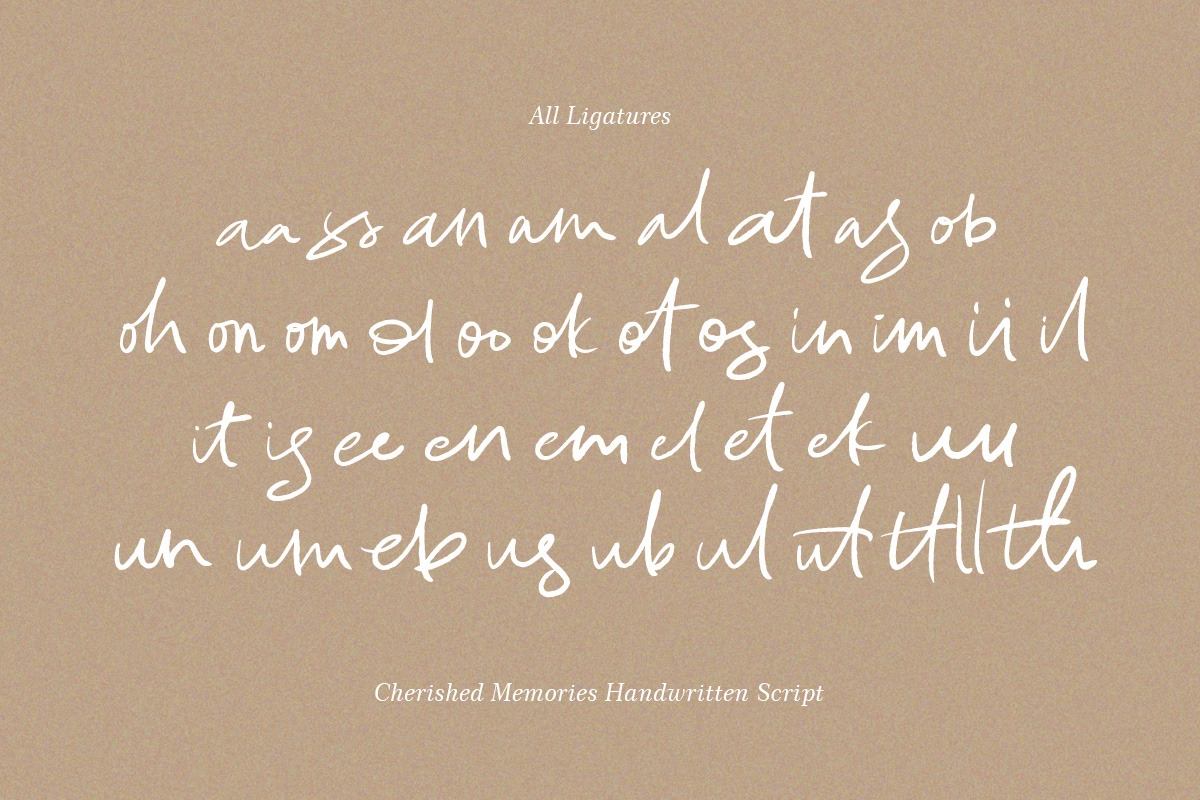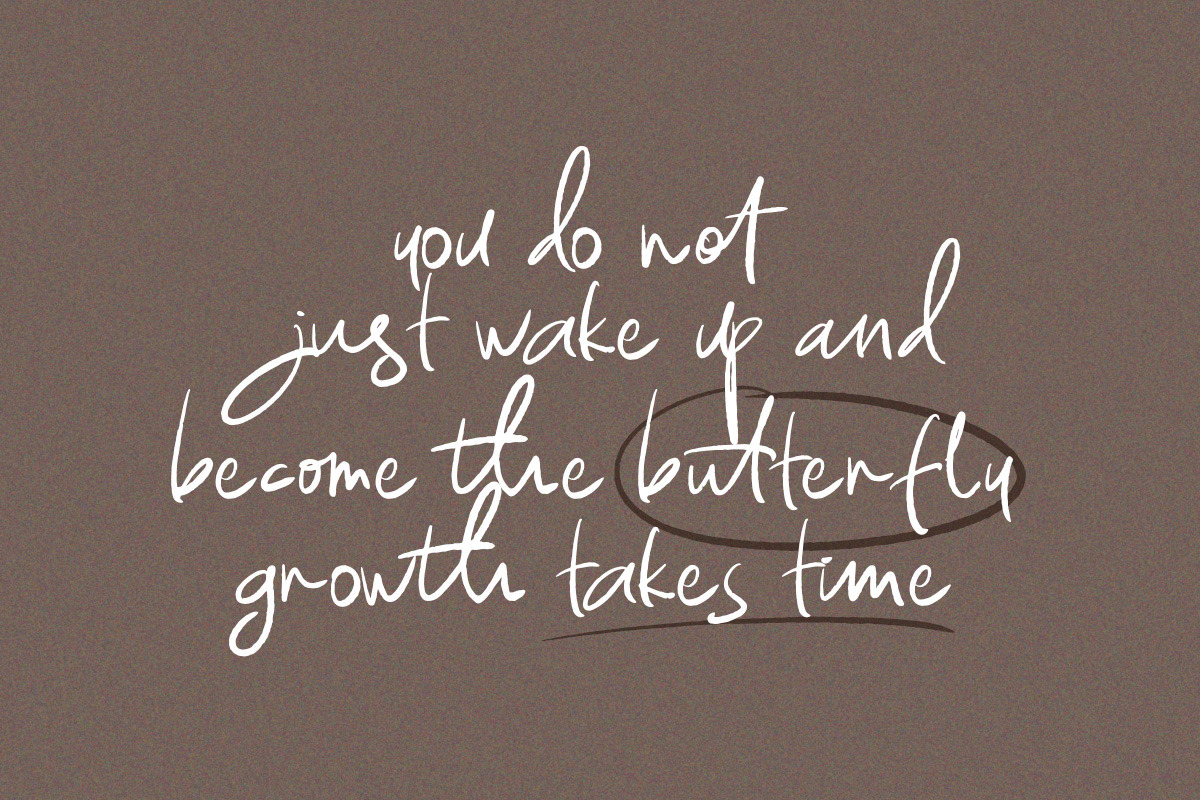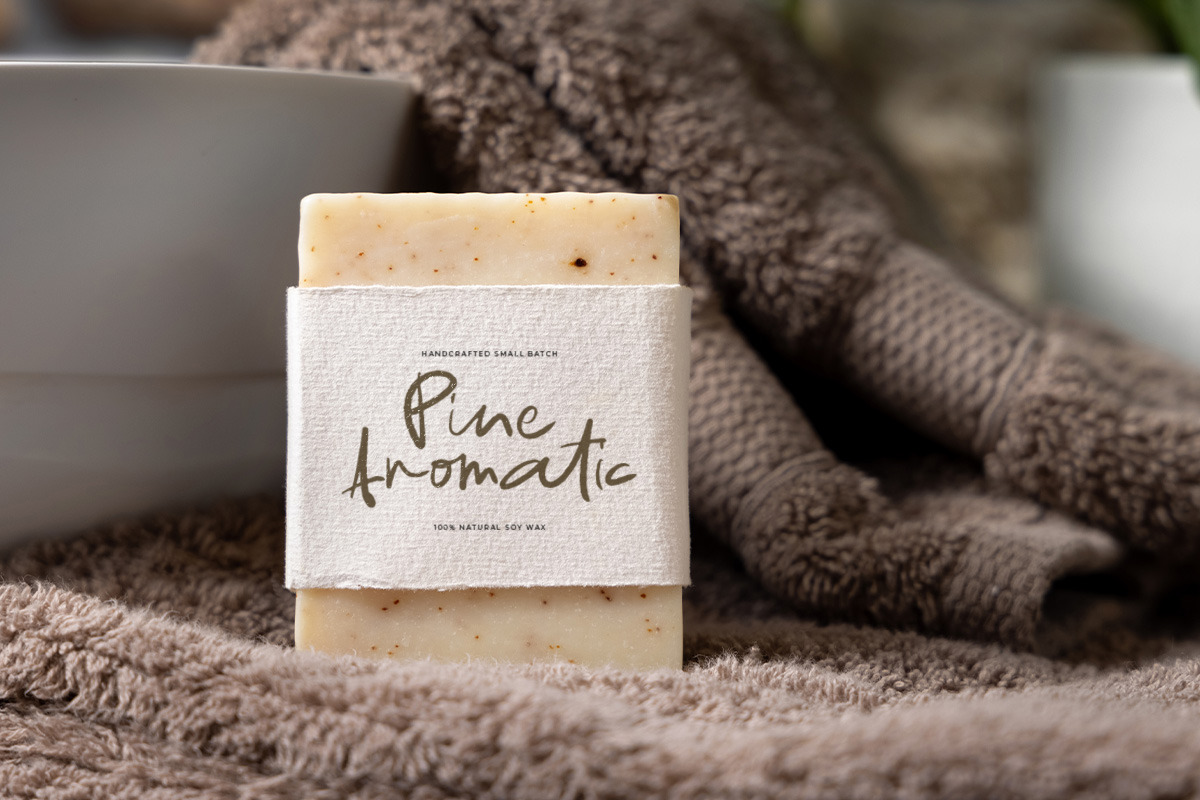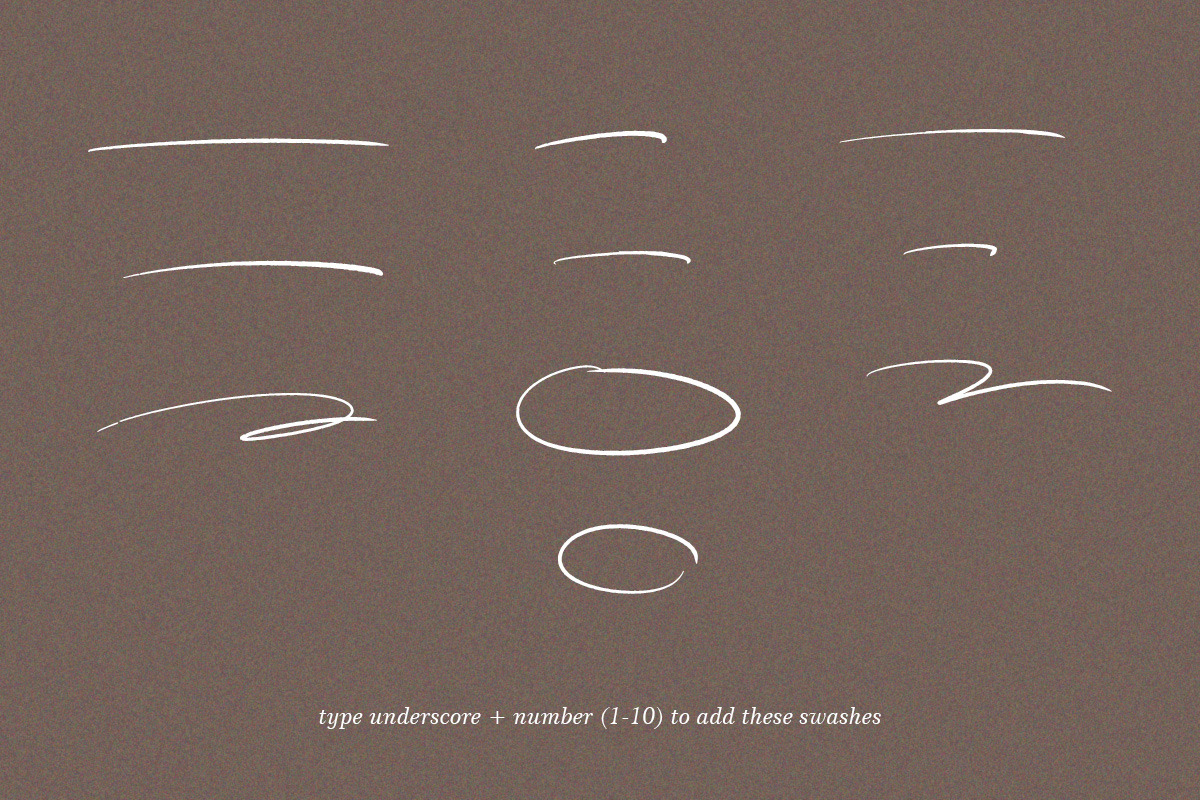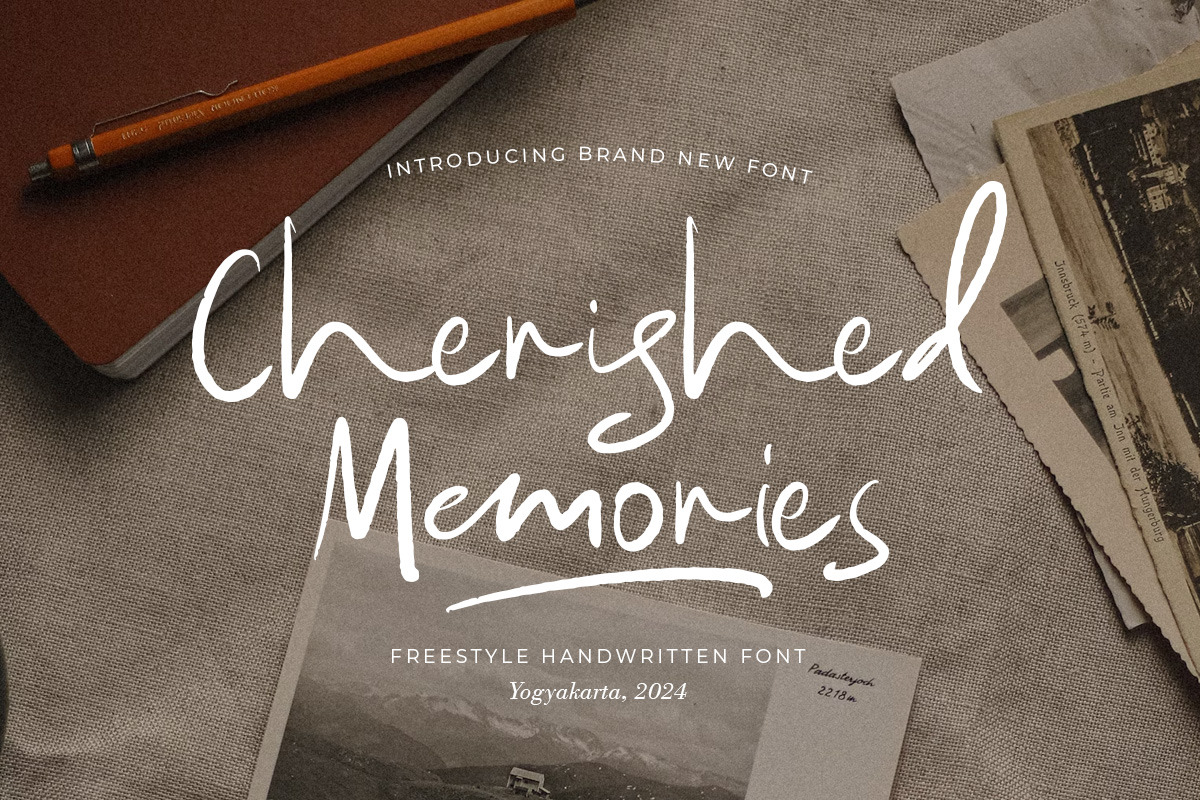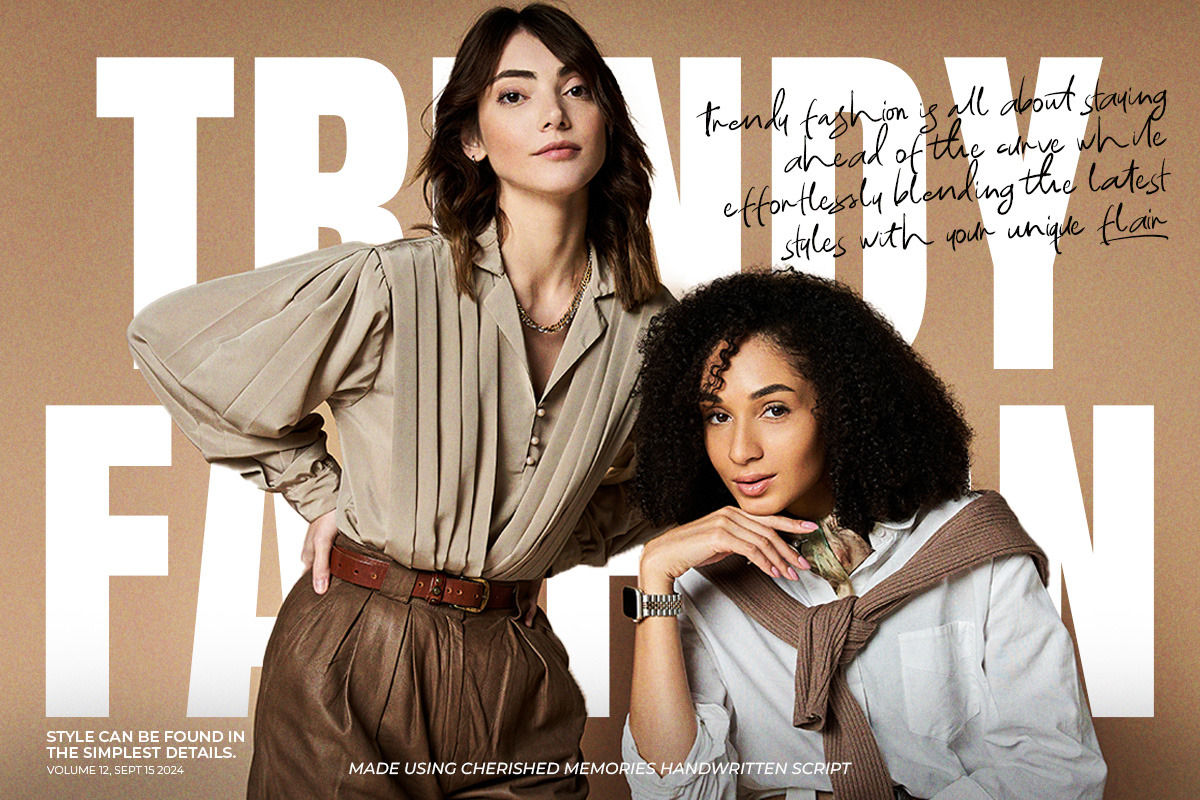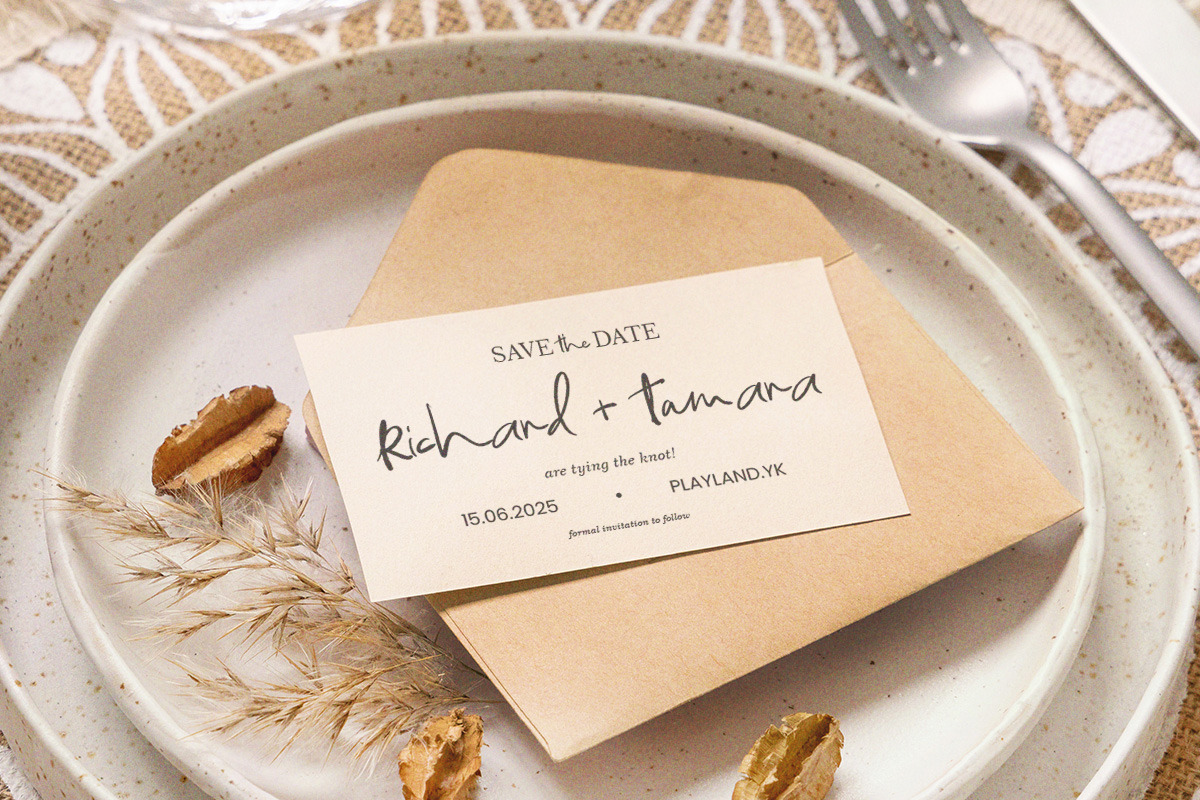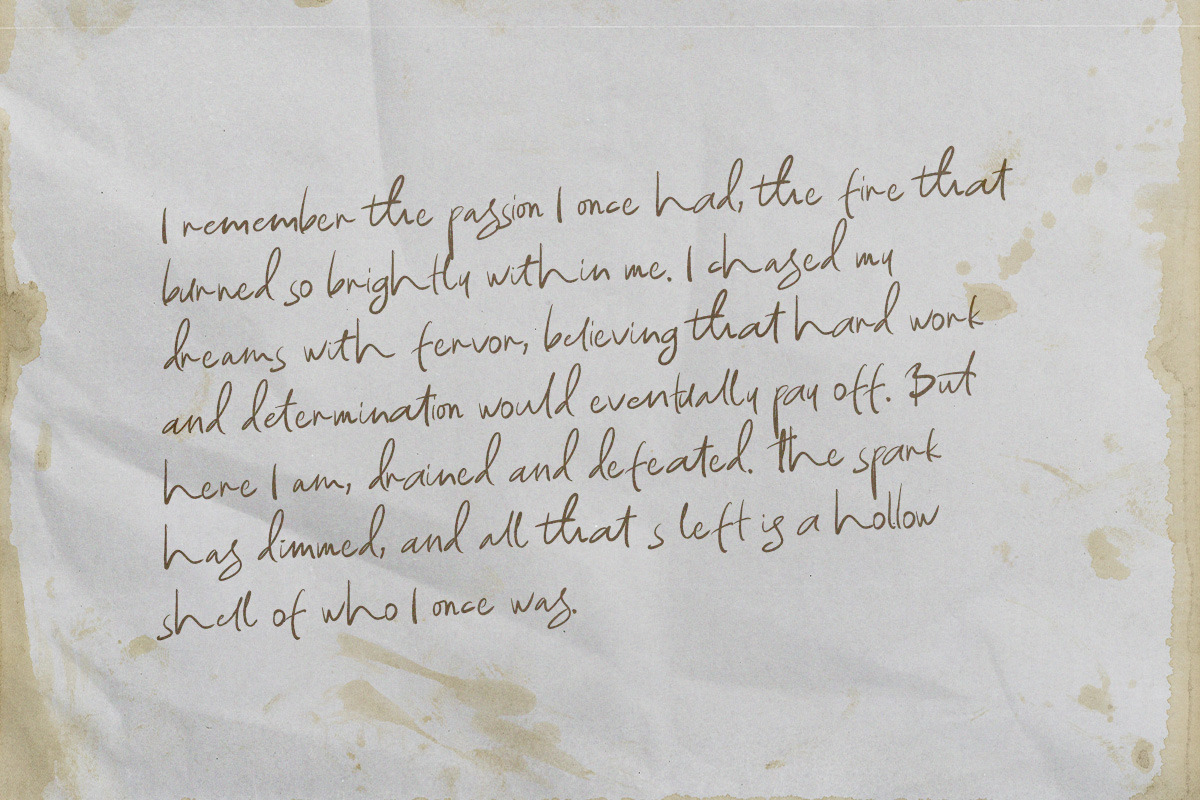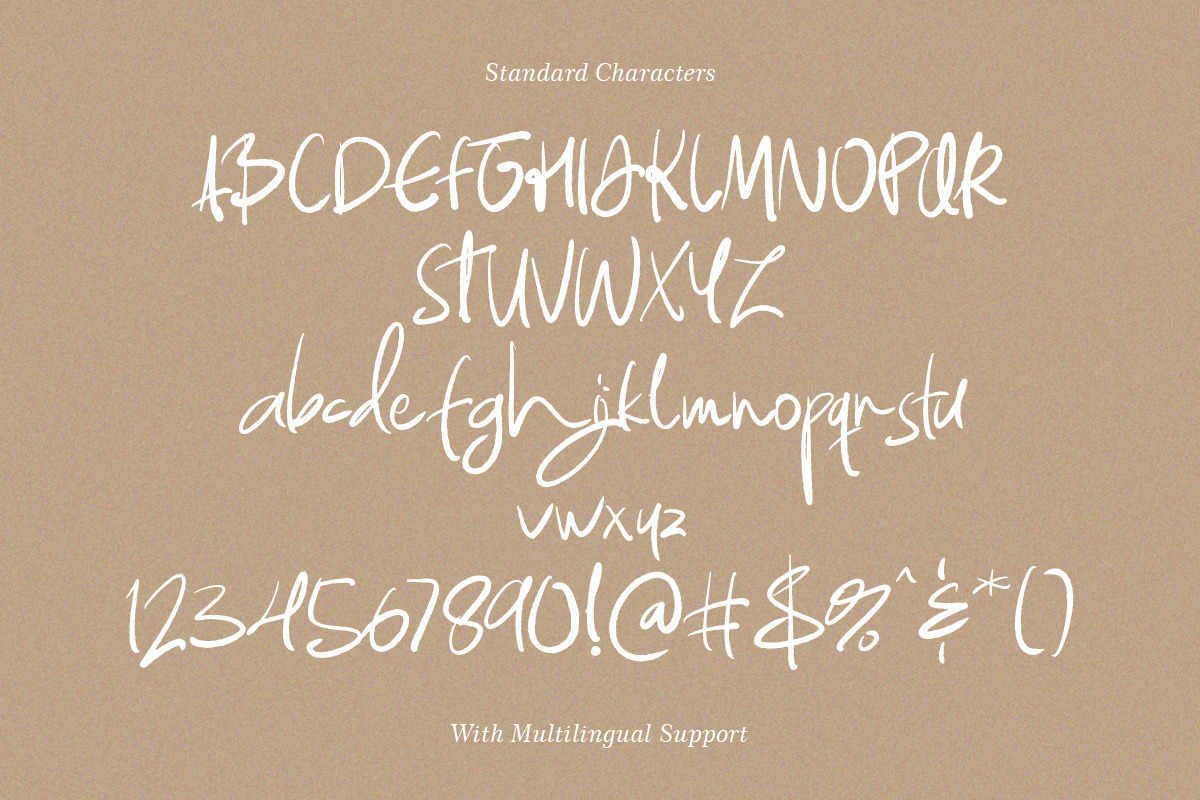
Cherished Memories Handwritten Font
Meet Cherished Memories, the hand-drawn font that exudes effortless freestyle and chic sophistication. This font is perfect for adding a touch of elegance to any design project, especially in logo, and the other various formal forms such as invitations, labels, logos, magazines, books, greeting / wedding cards, packaging, fashion, make up, stationery, novels, labels or any type of advertising purpose.